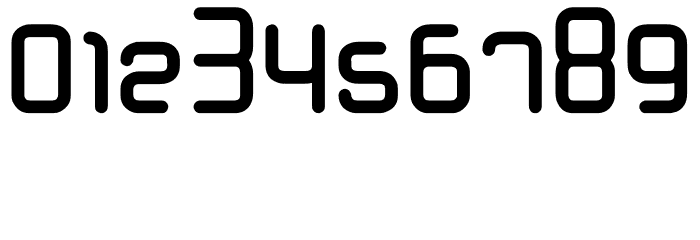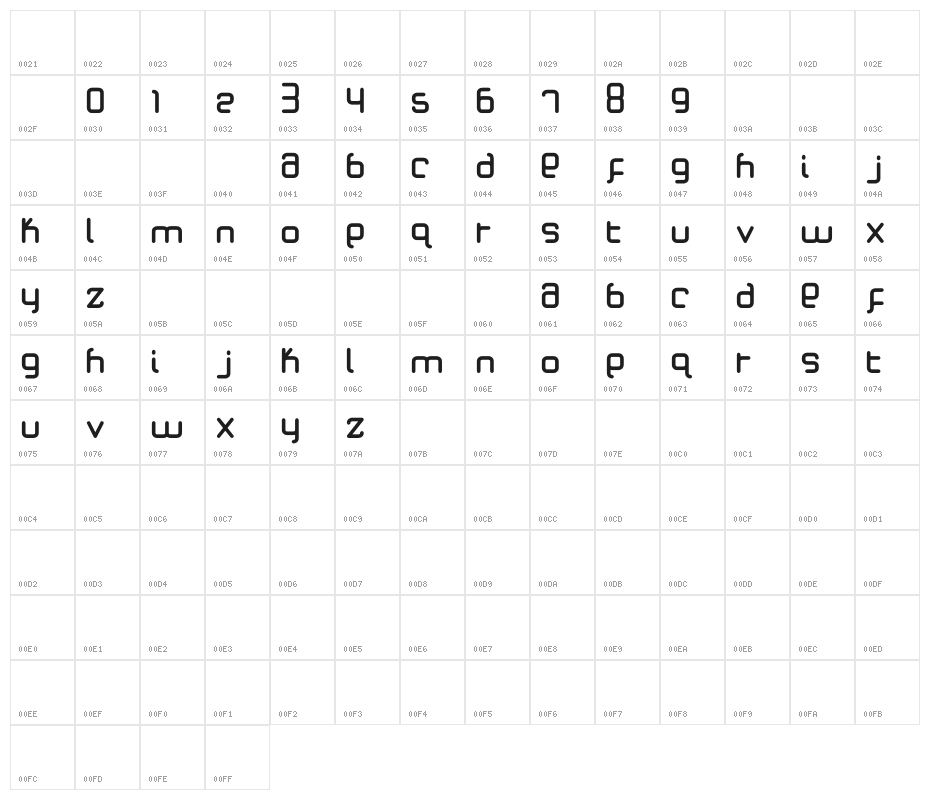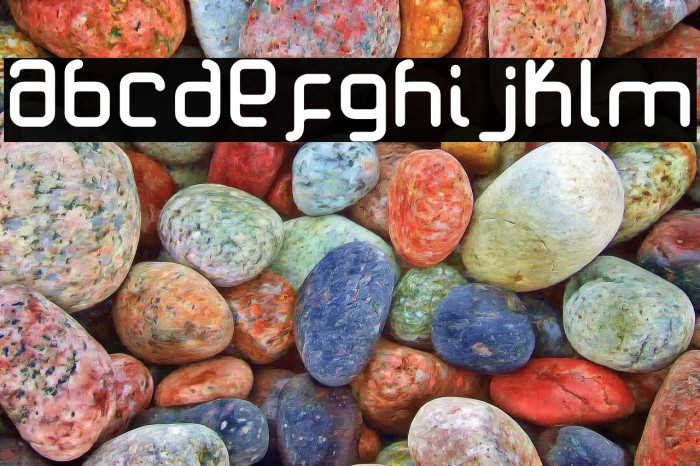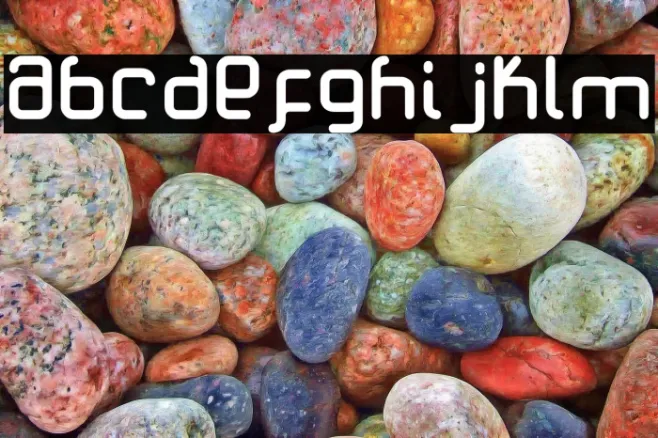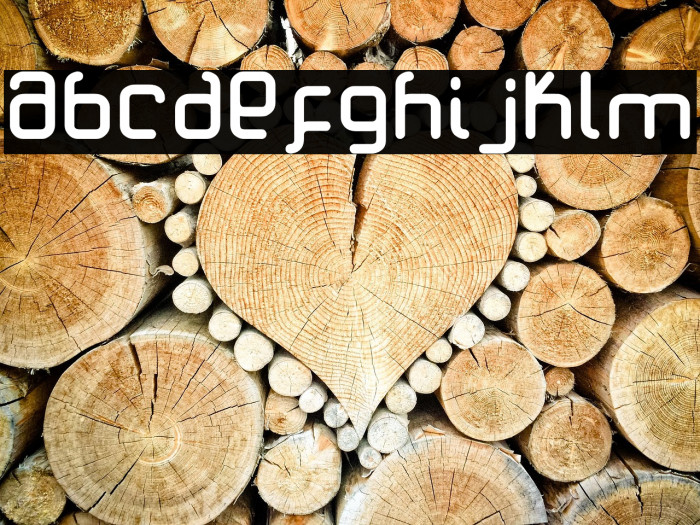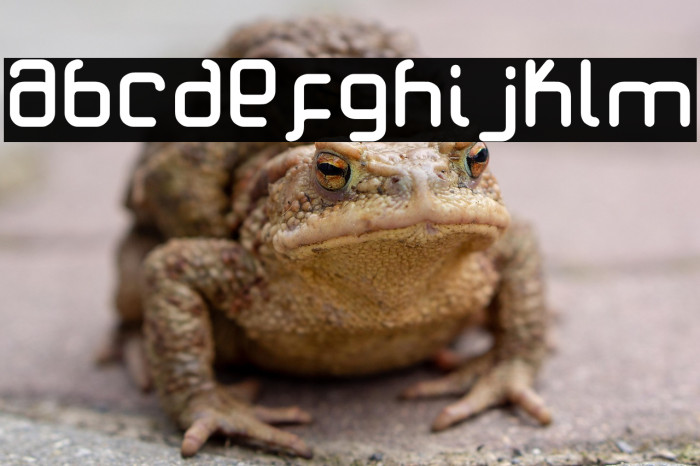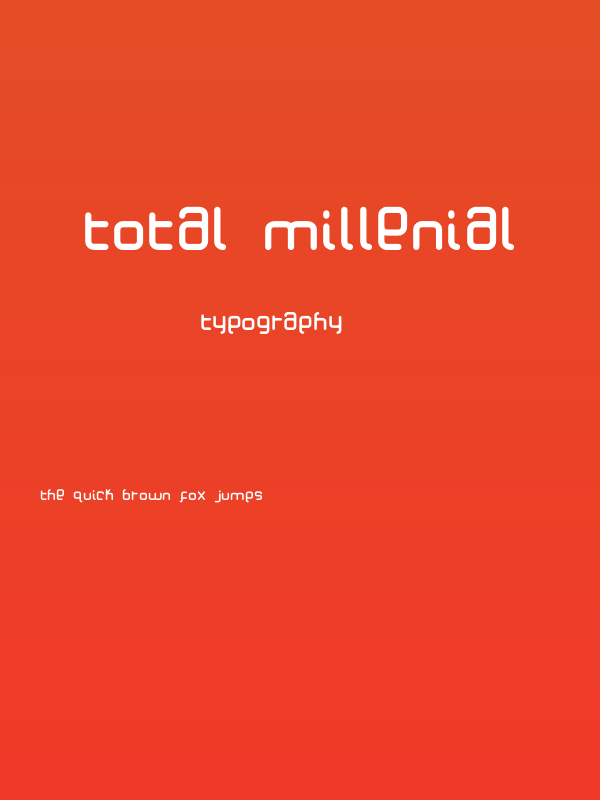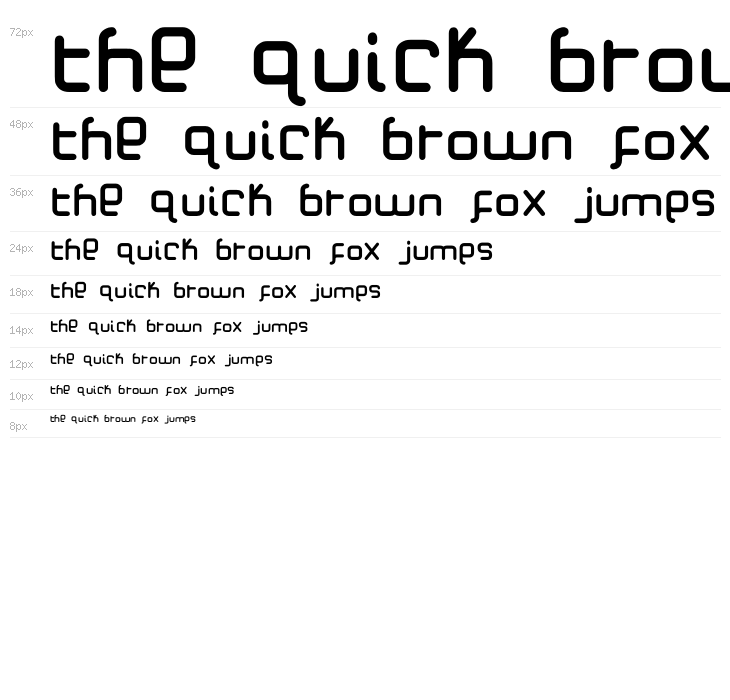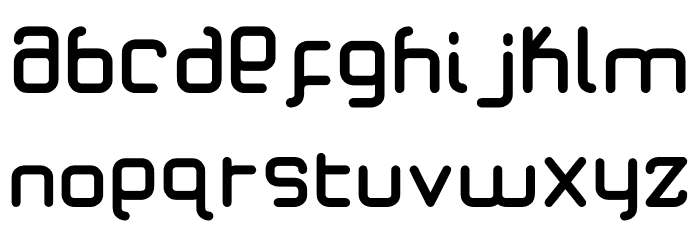
Total Millenial Font
Total Millenial Description
This font features a modern, rounded design with a futuristic and digital aesthetic. The characters are composed of smooth, continuous lines that create a sense of fluidity and movement. The rounded edges and uniform stroke width give it a friendly and approachable appearance. The font maintains a consistent height across all characters, enhancing readability. It is particularly well-suited for digital interfaces and technology-related projects due to its sleek and contemporary look. The numerals and special characters are designed to match the overall style, ensuring a cohesive visual presentation.
| Use Case | Logos, Digital interfaces, App design |
| Proposed Projects | Ideal for technology branding, digital interfaces, app design, and futuristic-themed projects. |